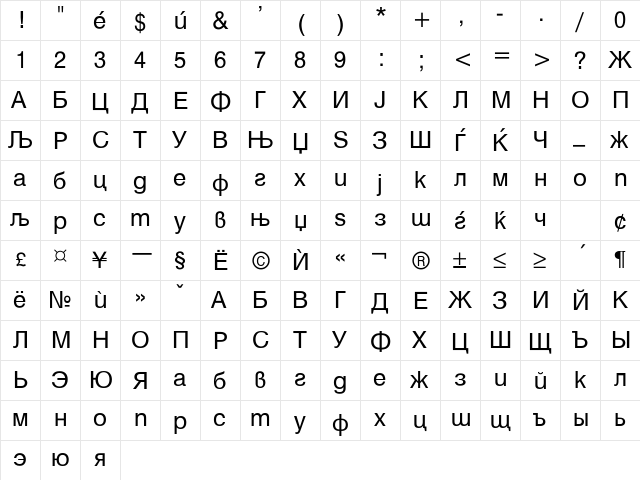
Mak_Hebar_Narrow Normal
Design Context for Mak_Hebar_Narrow Typeface
Mak_Hebar_Narrow offers clean, dependable letterforms without strong stylistic allegiance, making it a practical choice for designers who need flexibility. The condensed width makes it efficient for tight spaces without sacrificing legibility.